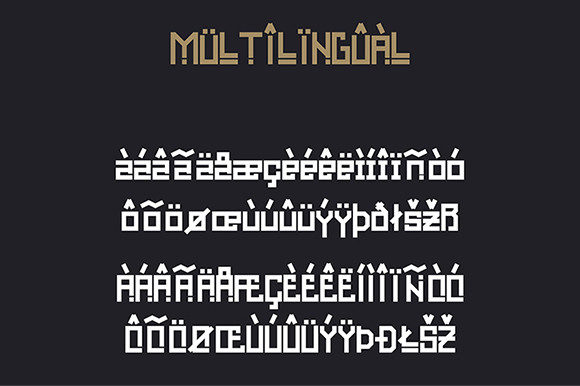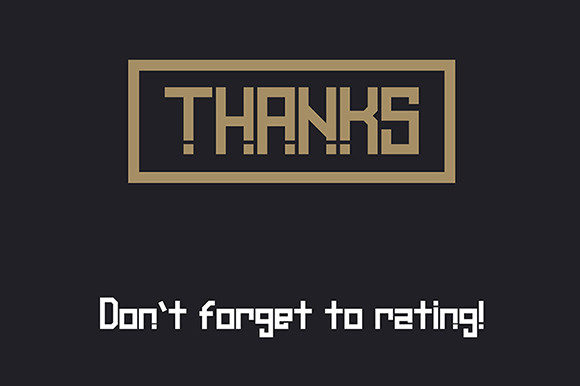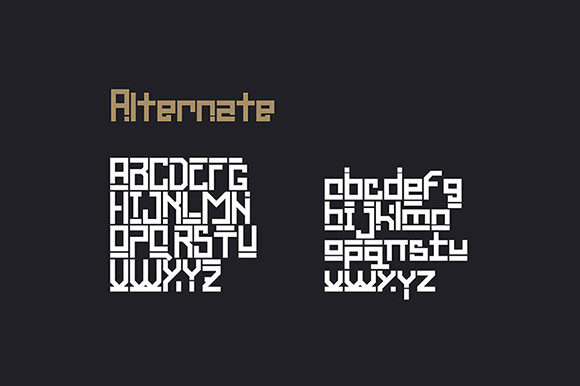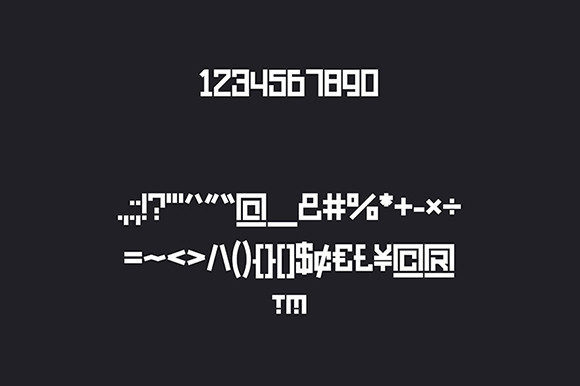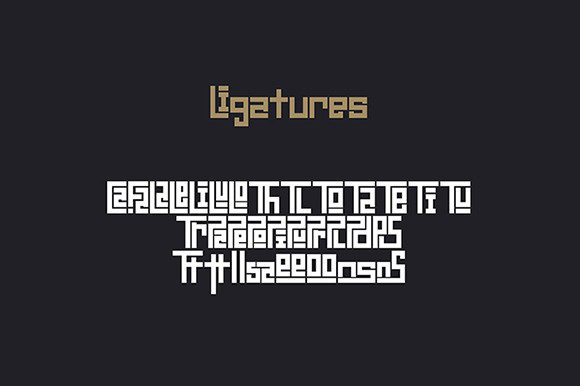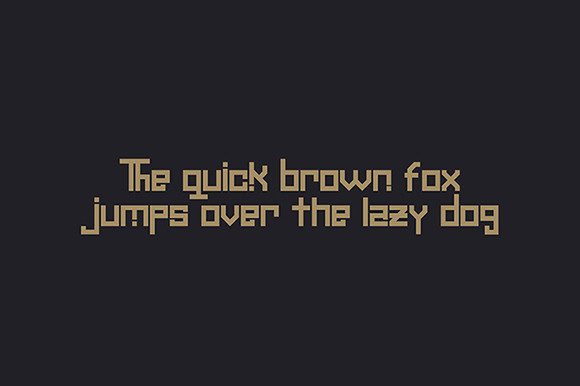
Introduction to Latelo Font Font
Fonts play a crucial role in design, and the Latelo Font font is a typeface that brings both character and versatility to any project. Whether you’re working on a branding project, a website, or a print design, the Latelo Font font offers a unique style that can elevate your work.
Latelo is an incredibly cool and genuine display font.
This original look will appeal to a wide range of crafty ideas, from letterheads and titles, to stationery .
Key Features of Latelo Font Font
Why Choose Latelo Font Font?
The Latelo Font font is more than just a typeface – it’s a design tool that helps you communicate your message with style and clarity. Its unique character set and versatile design make it suitable for a wide range of applications, from elegant invitations to bold headlines.
With its carefully crafted letterforms and balanced proportions, the Latelo Font font ensures readability and visual appeal across all mediums.
What makes Latelo Font font special?
The Latelo Font font stands out with its unique design, exceptional readability, and versatility across various design applications.